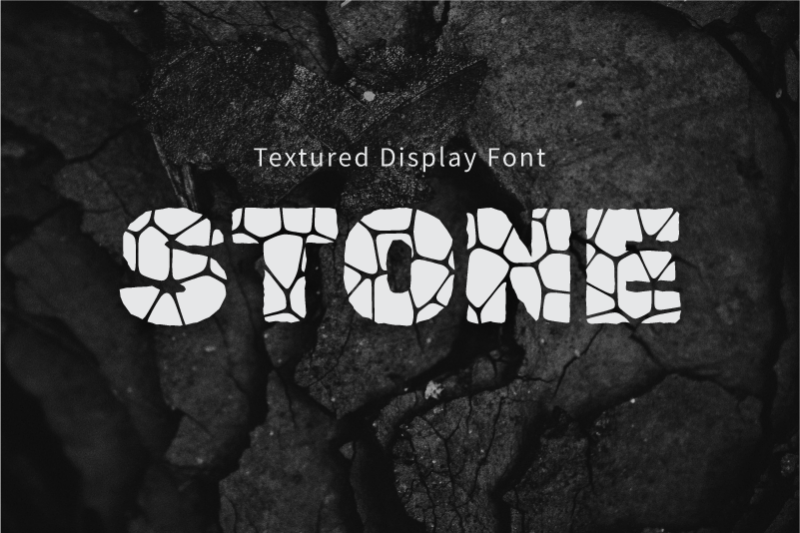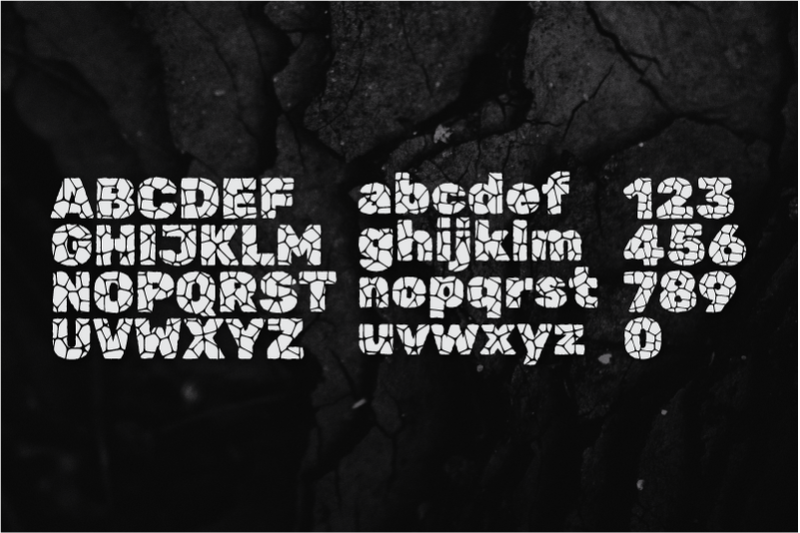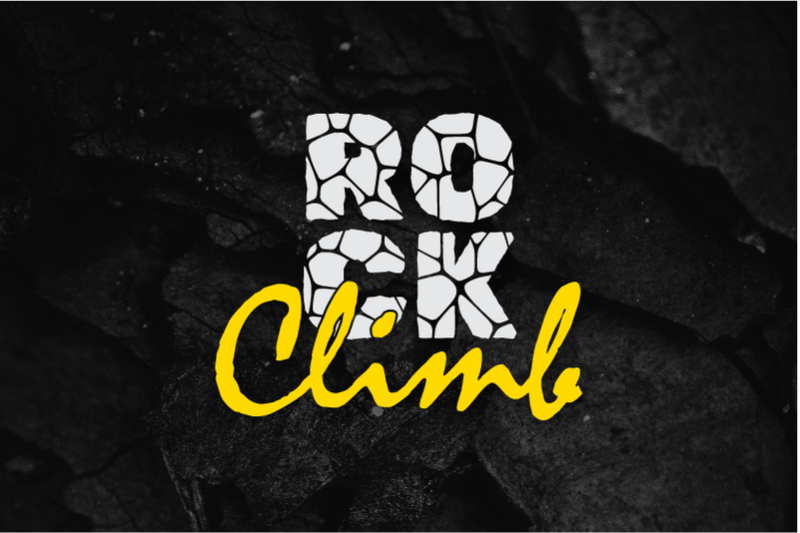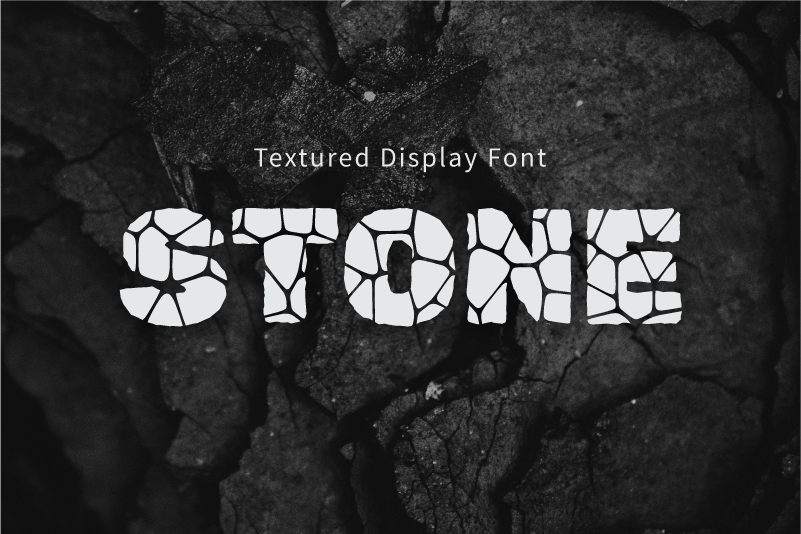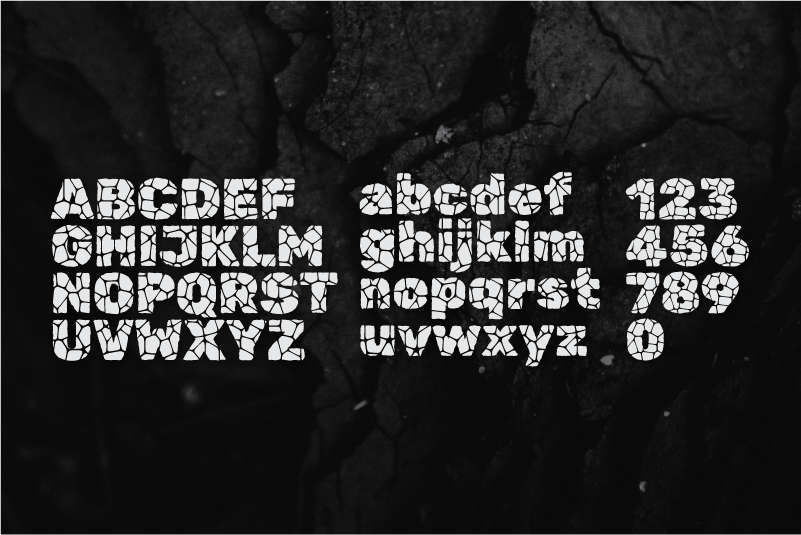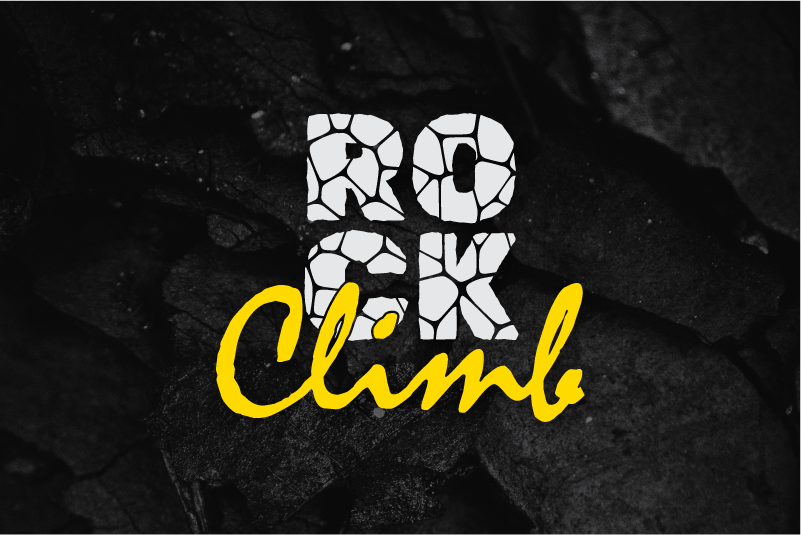
STONE PATTERN Textured Display Font
STONE PATTERN – Textured Display Font STONE PATTERN is a unique display font inspired by the natural texture and shape of stone. Each letter is carefully crafted with a rugged stone pattern, giving your design a strong, rustic, and organic look. Perfect for: Nature, adventure, or outdoor-themed designs Bold and natural logo branding Posters, headlines, and creative titles Product packaging, merchandise, and decorations With its realistic stone texture and solid character style, STONE PATTERN will make your designs stand out with a powerful and distinctive appearance.